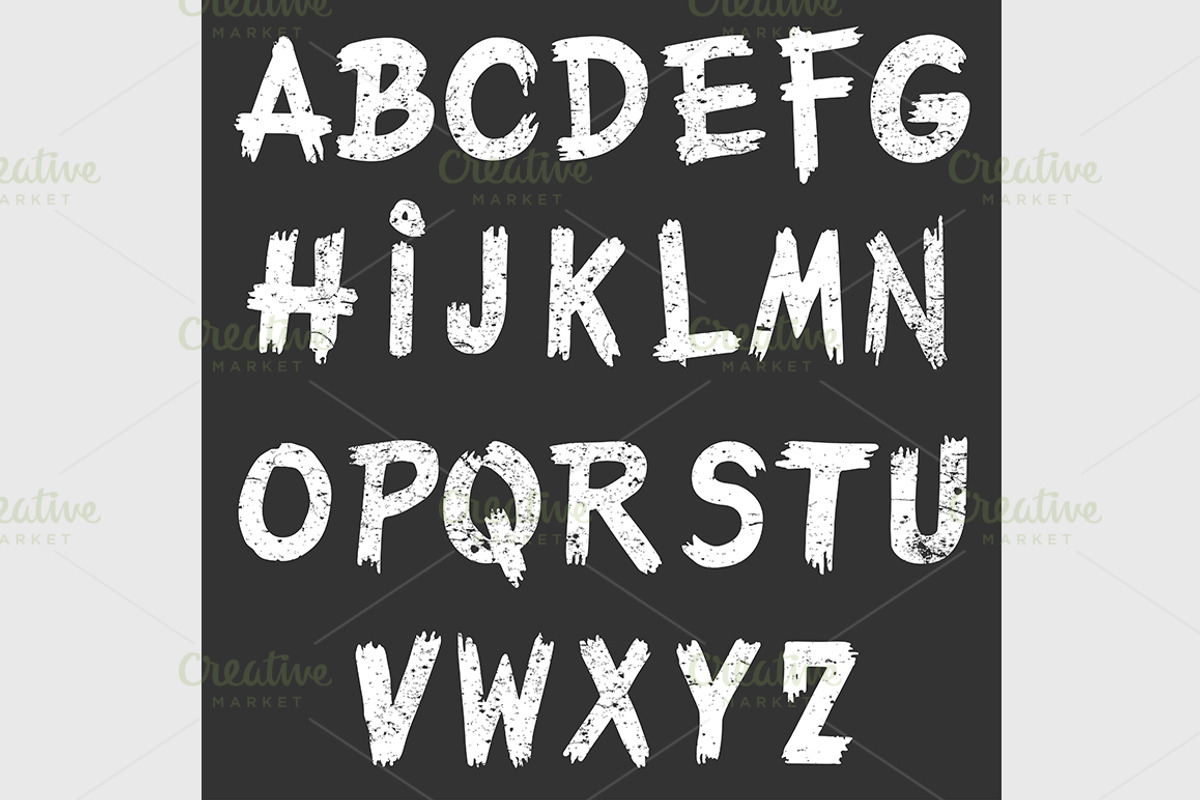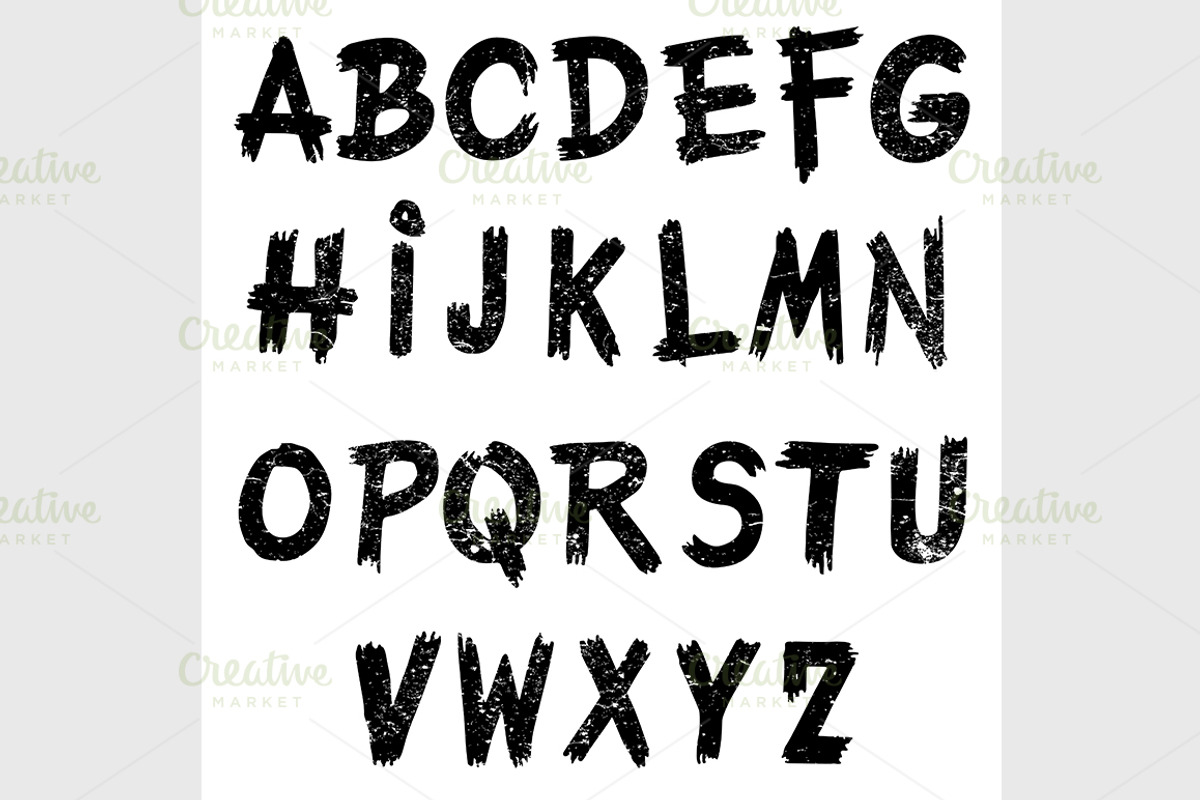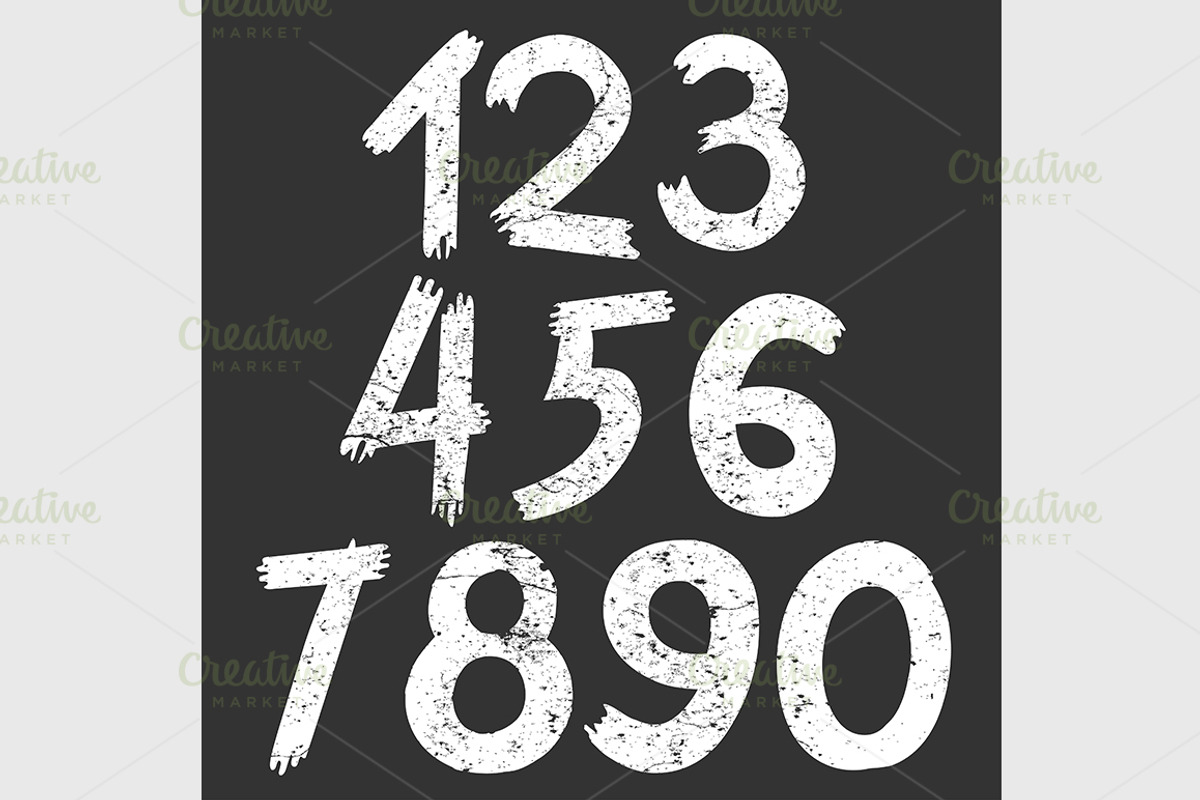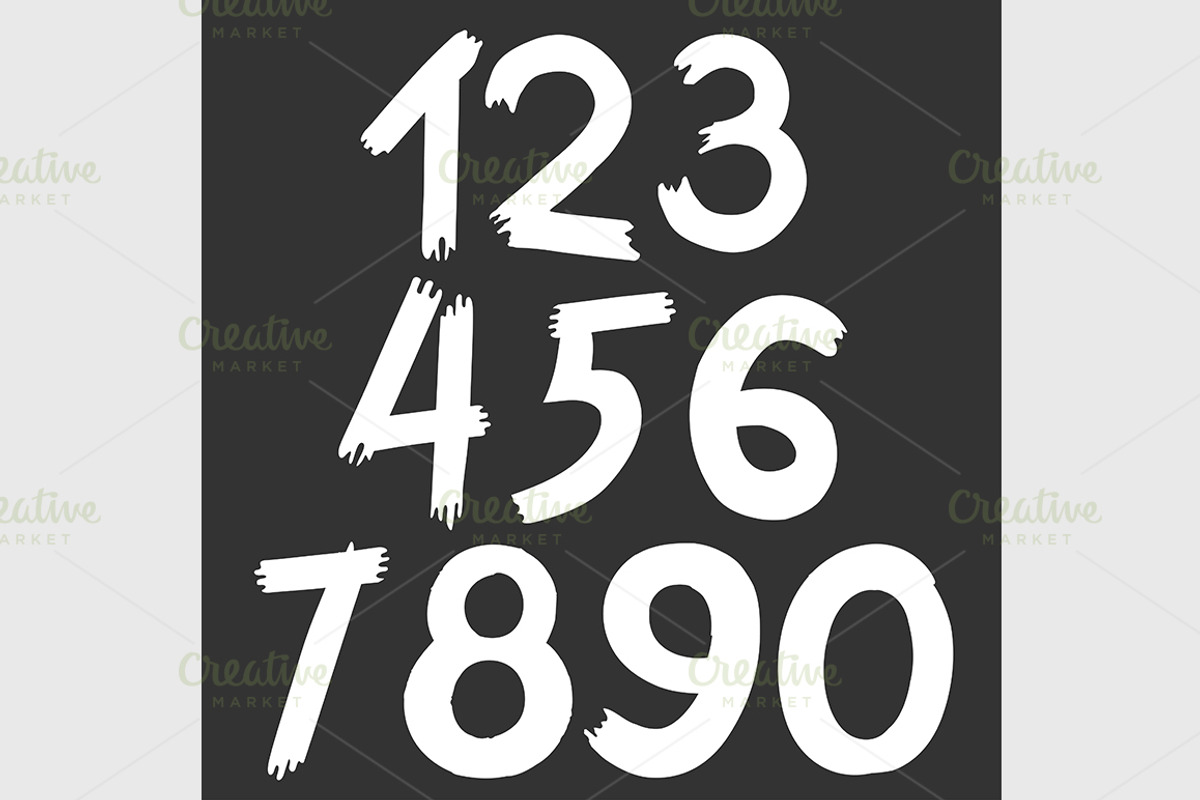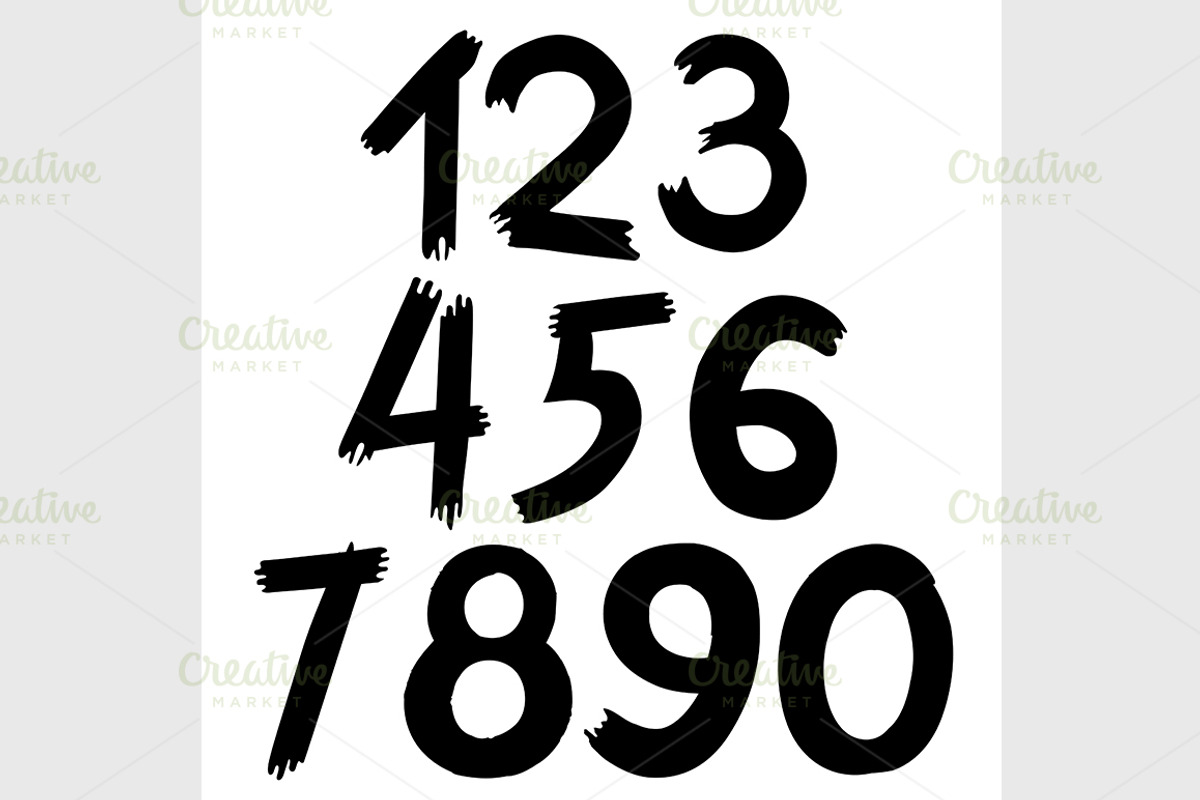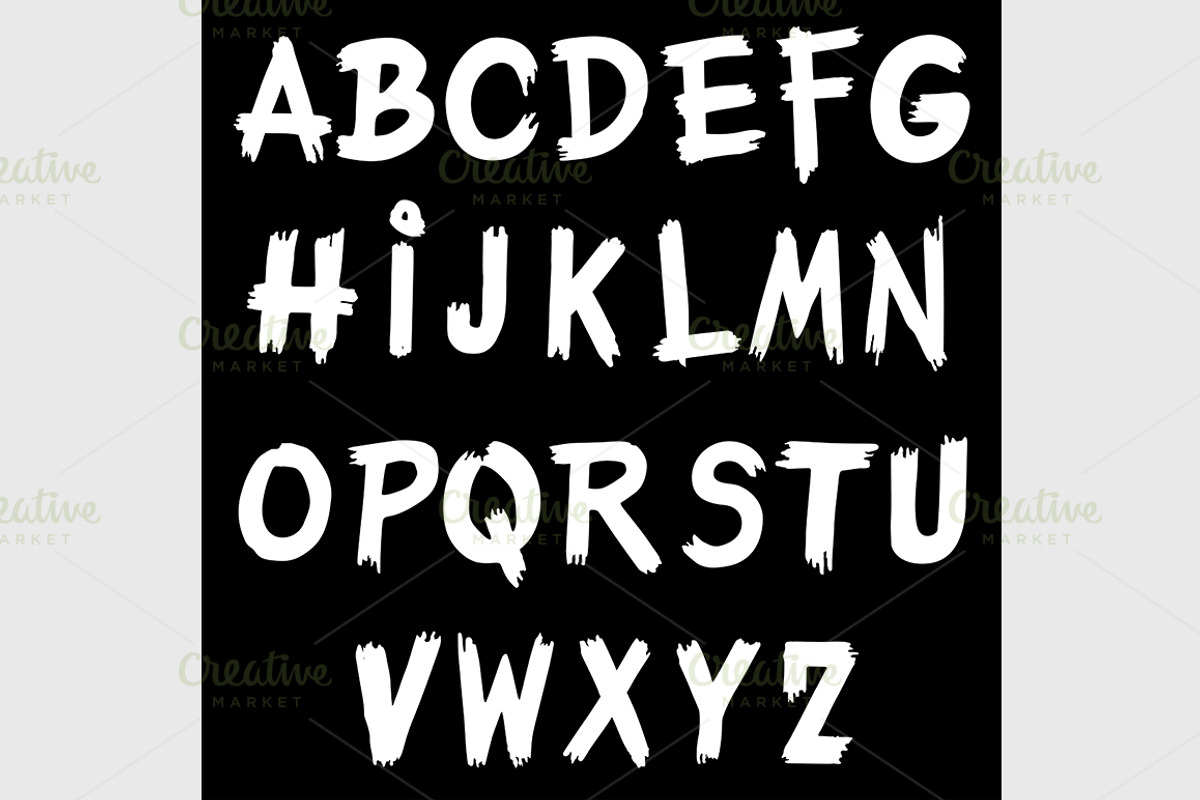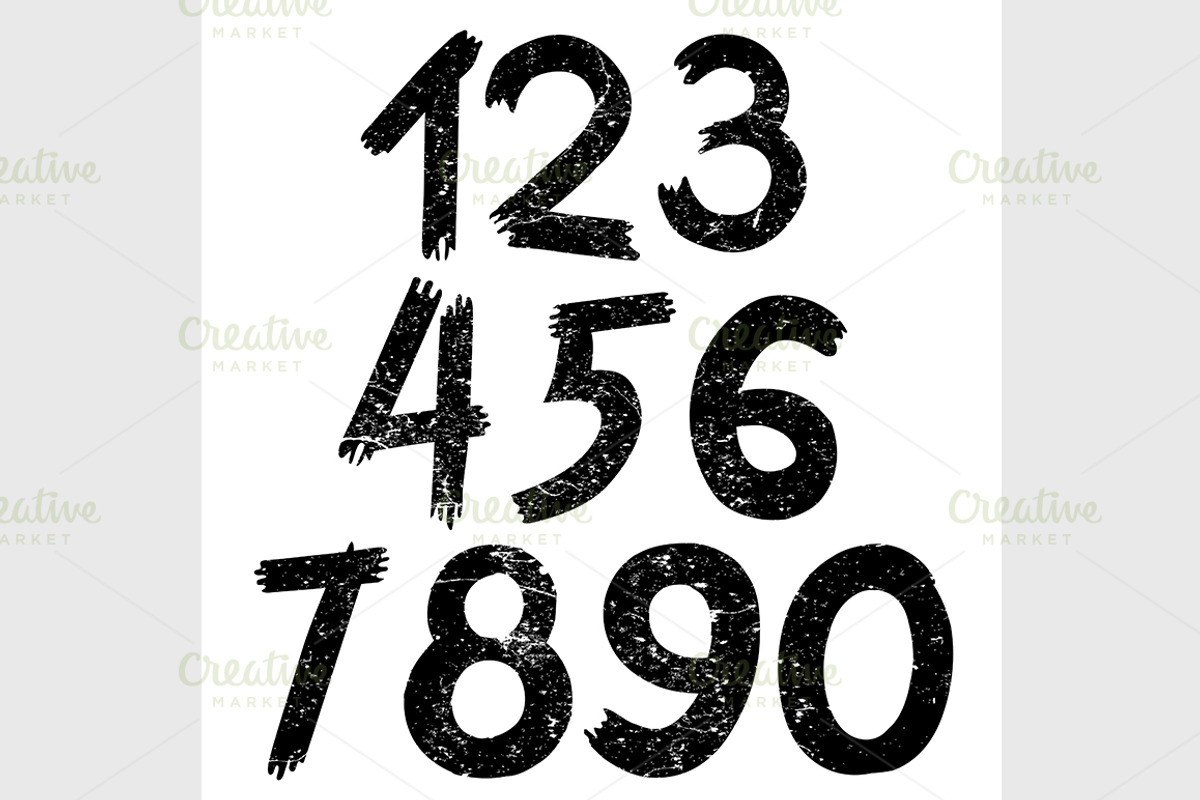
Font AxWoodFont
Font AxWoodFont by IllustrationArtShop is a font selected for branding, posters, packaging, typography.
Why Font AxWoodFont is worth a look
Font AxWoodFont by IllustrationArtShop fits naturally into Branding, posters, packaging, typography.